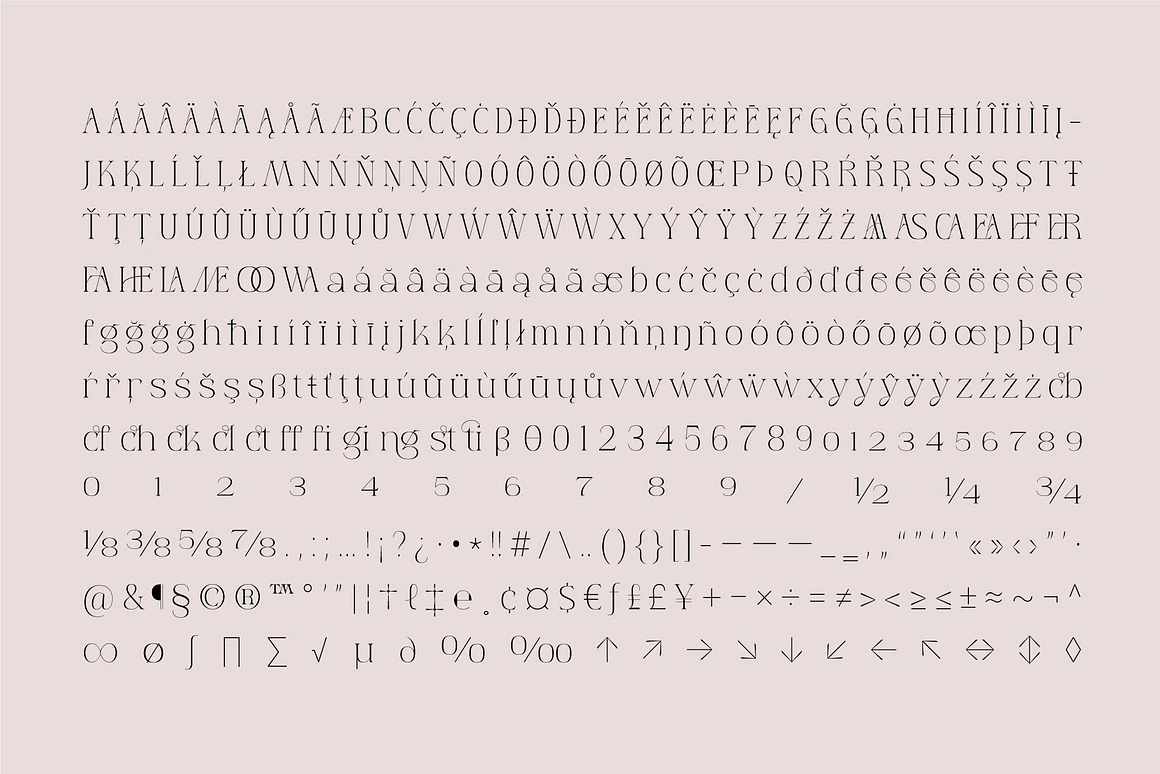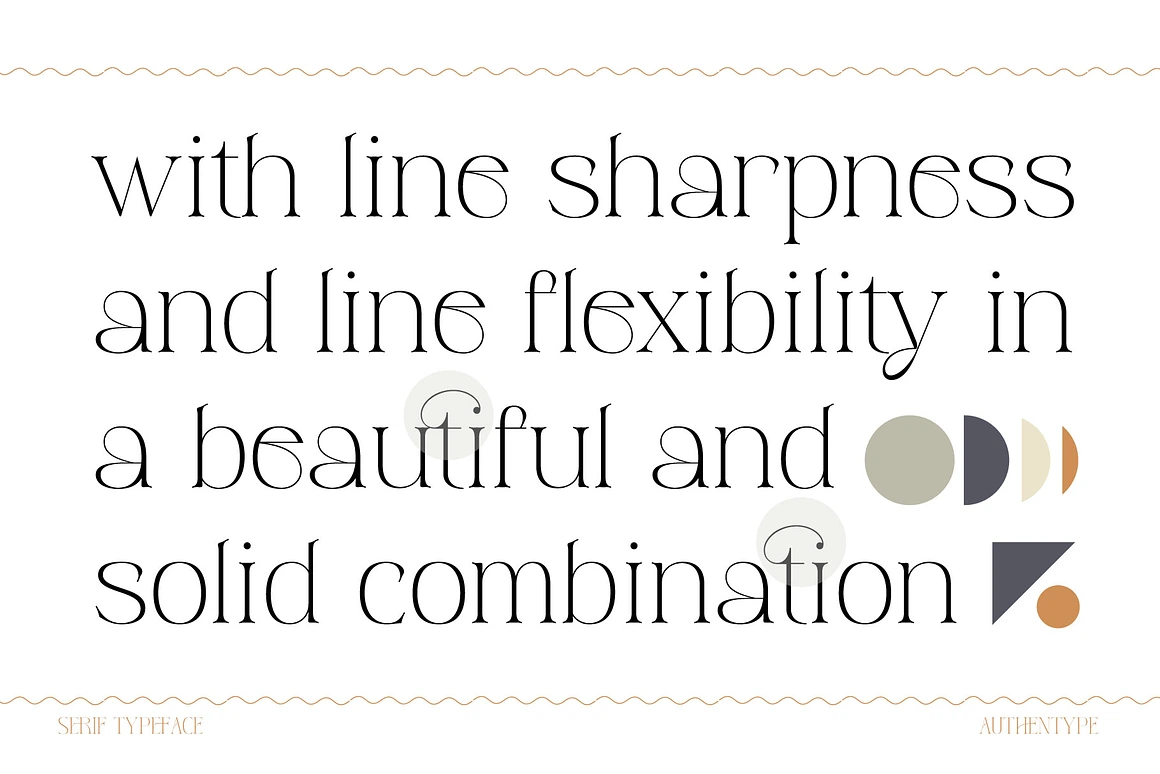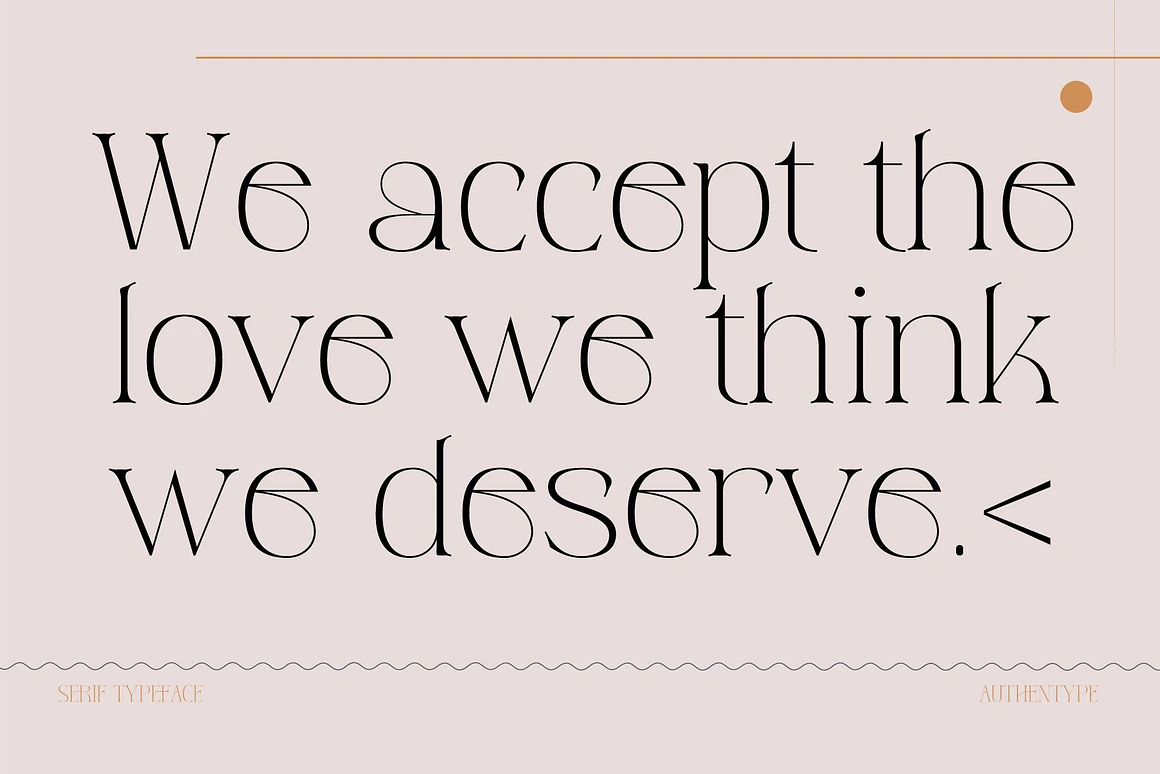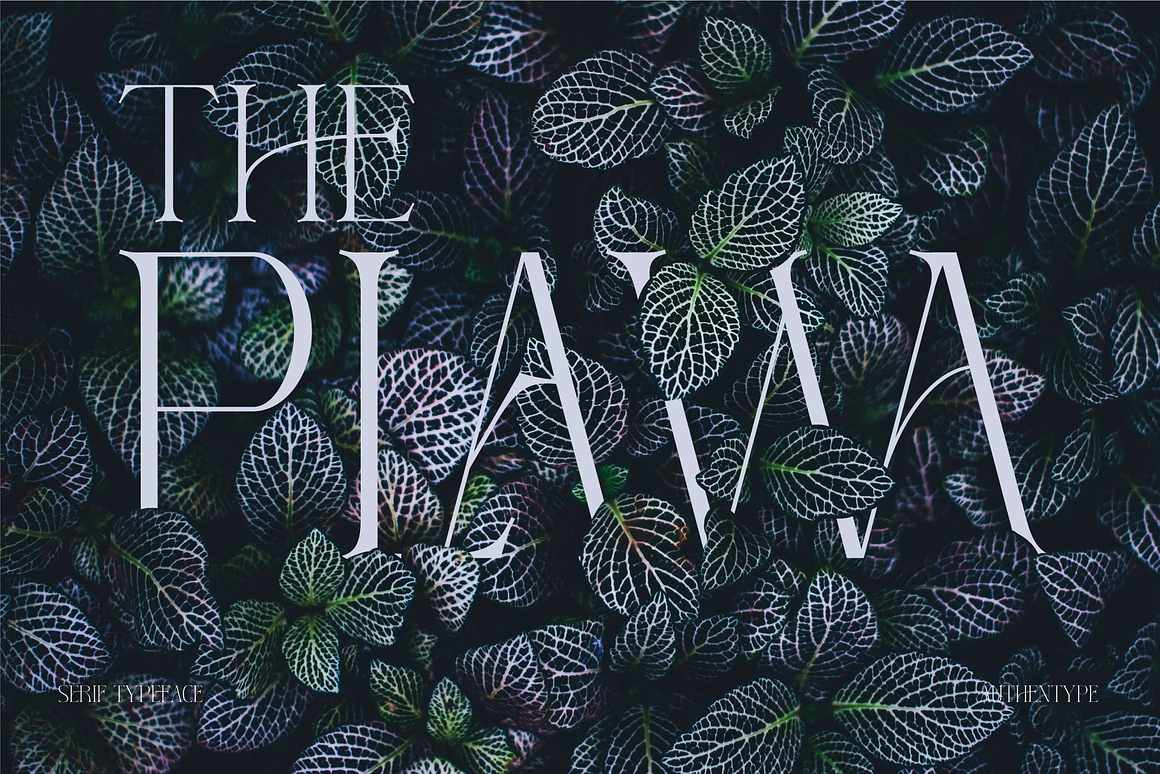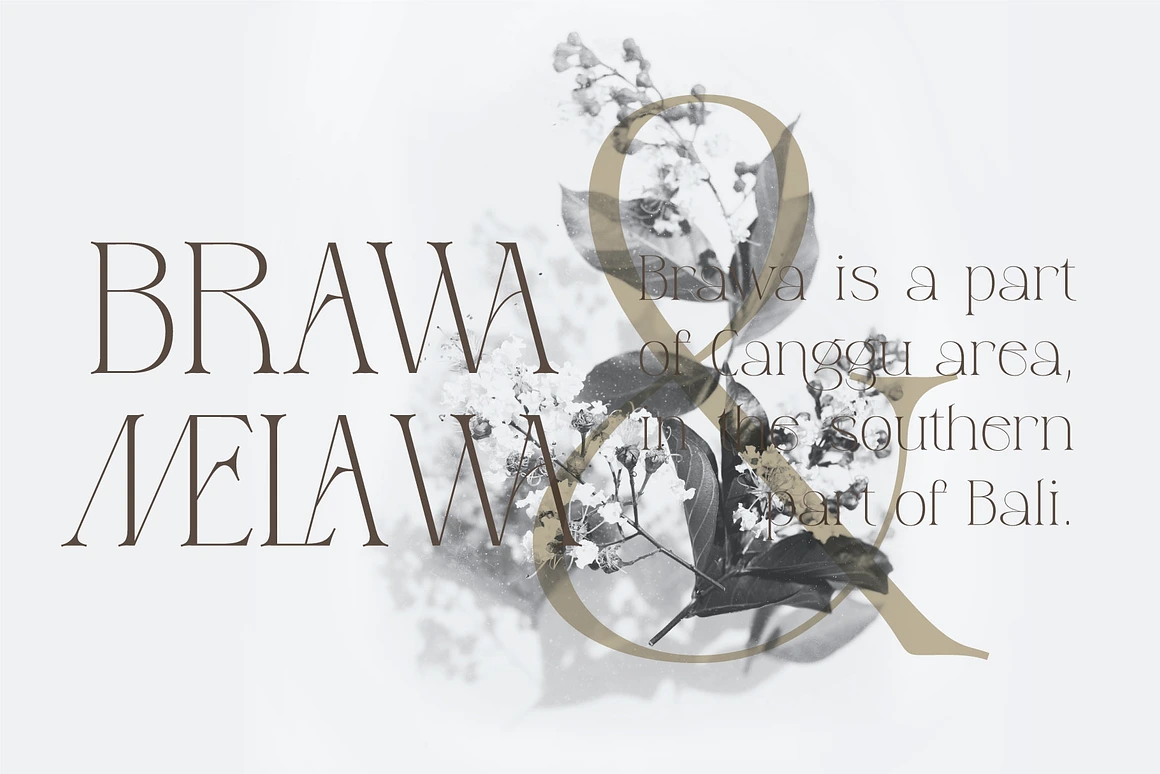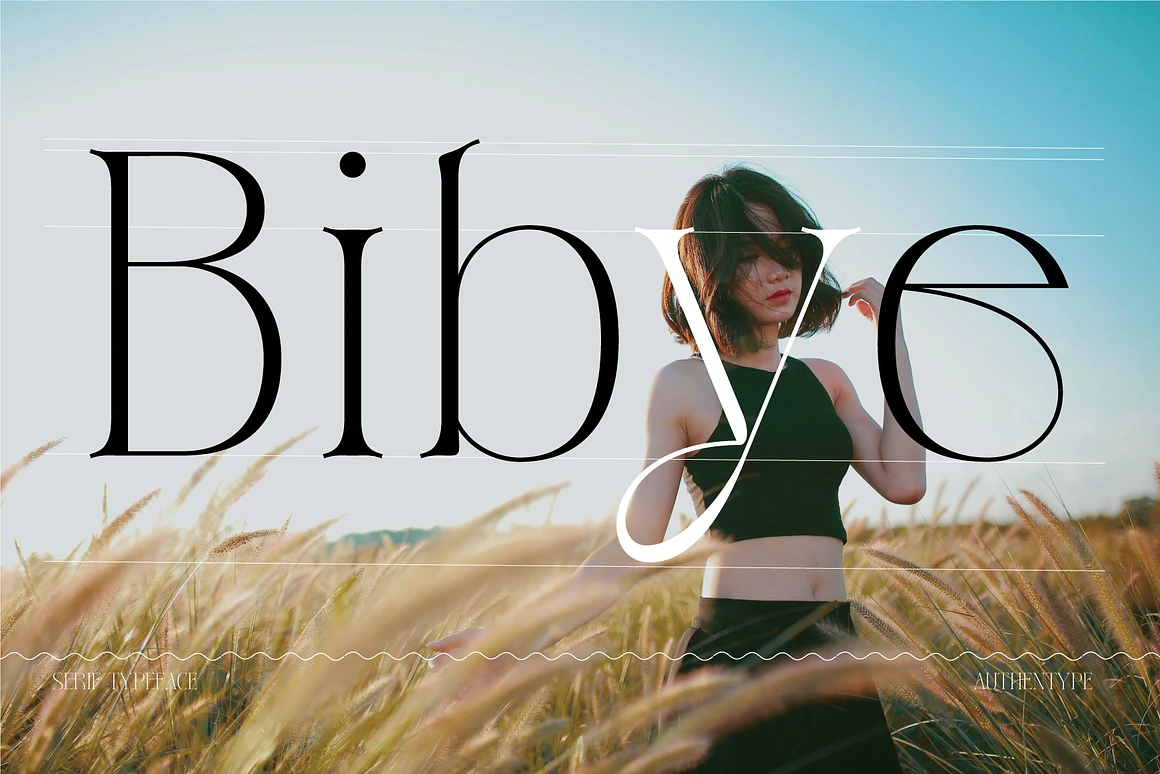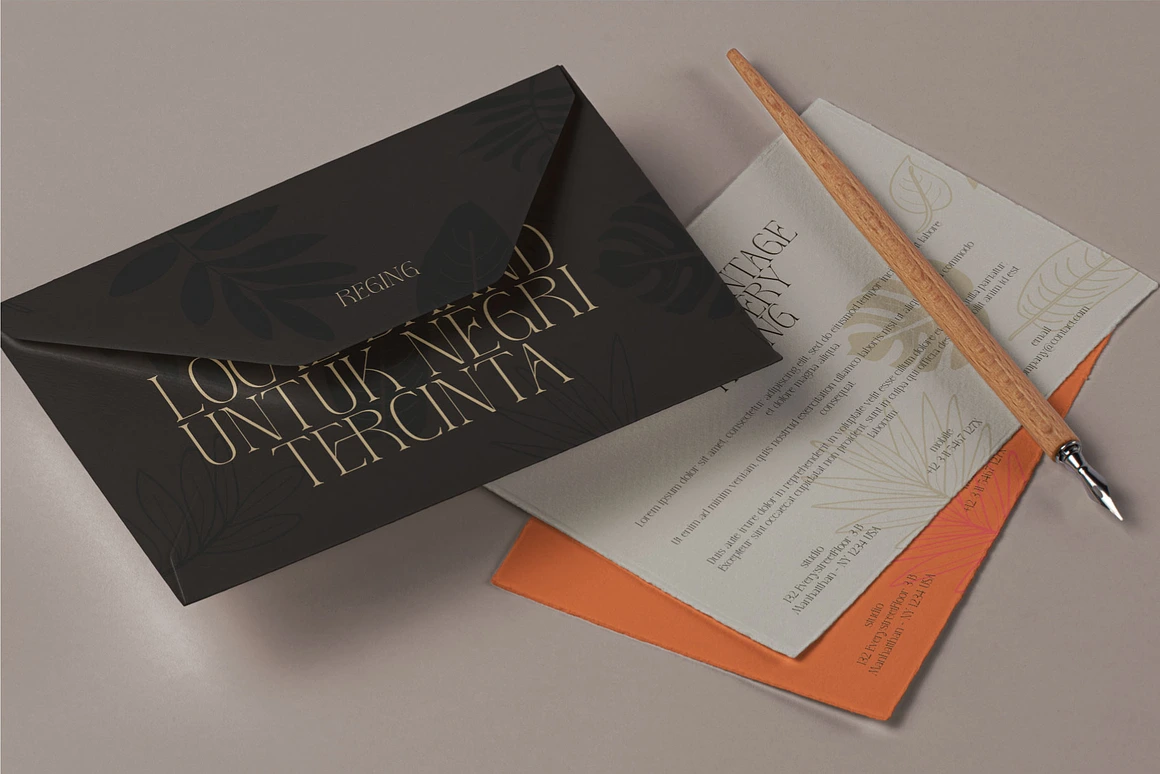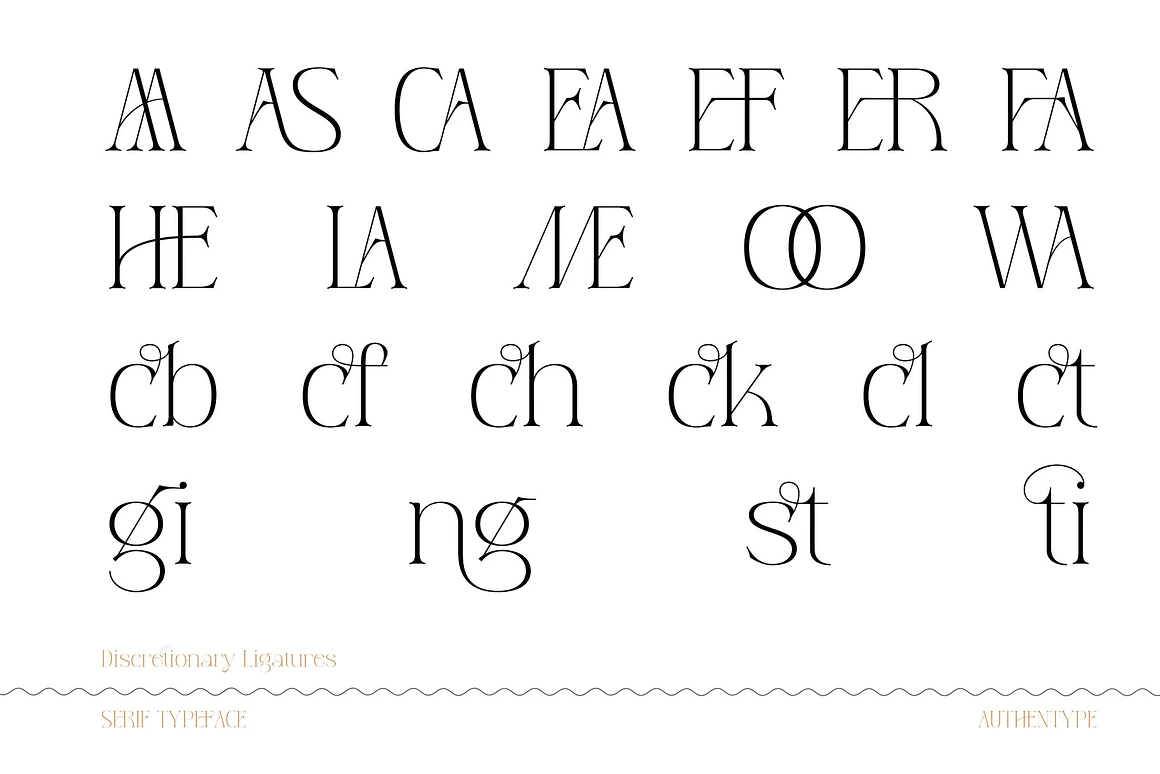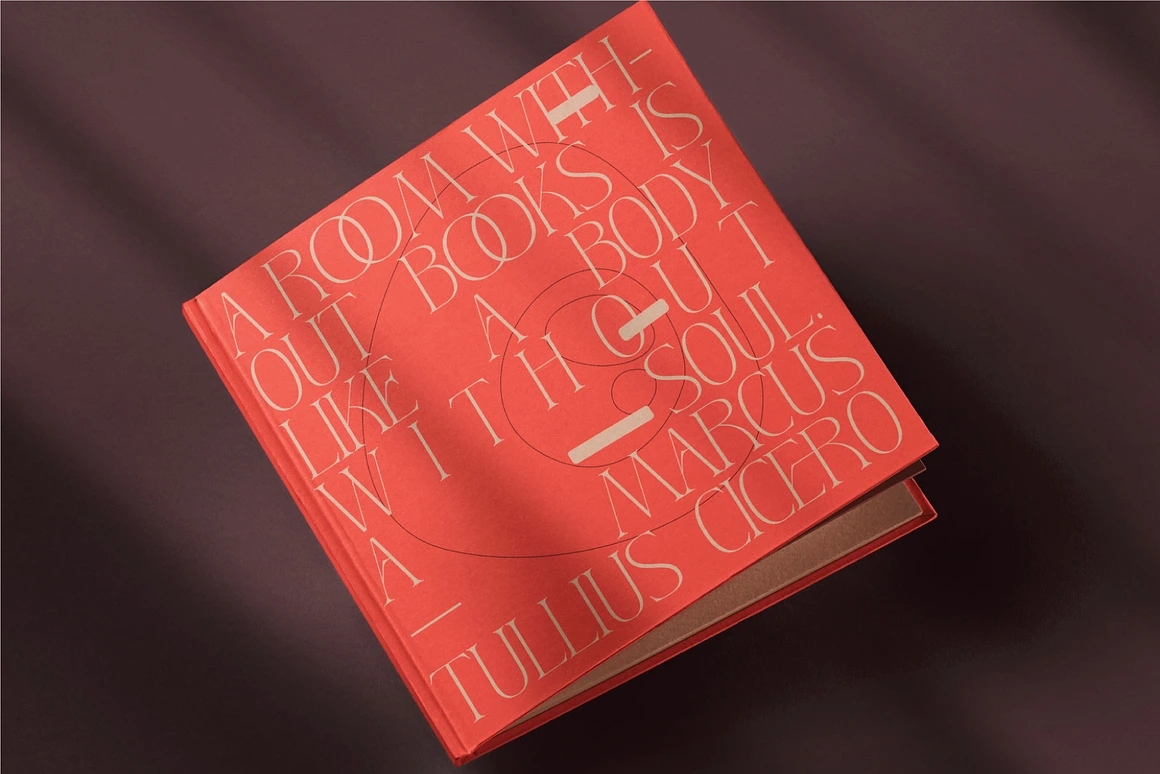
Reging – Elegant Serif Font for Beauty Branding
Looking for the perfect font for beauty branding?
Reging Elegant Serif Font for Beauty Branding is an elegant serif typeface designed with clean strokes and refined details, making it ideal for beauty product packaging, skincare labels, fashion editorials, and luxury brand identities.
With its versatile style, Reging brings sophistication to brochures, magazines, business cards, invitations, and greeting cards. Whether you’re designing for a beauty brand or creating stylish print layouts, Reging is the font that elevates your project.
✦ Features
- Uppercase & lowercase letters
- Numerals, punctuation, and ligatures
- Multilingual support